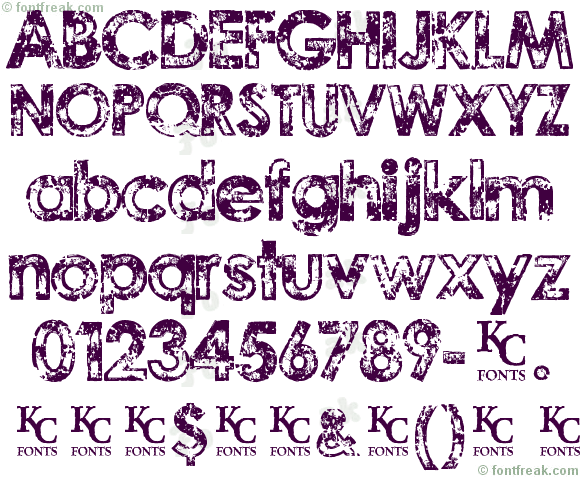
Tragic Vision
Tragic Vision by Kevin Christopher is a unique display font that captures a distinct artistic flair. This typeface falls under the decorative category, showcasing a raw and expressive style that evokes emotional depth. The visual characteristics of Tragic Vision are marked by its irregular stroke weight and a textured appearance that gives it a handcrafted feel. The letters feature a bold design with varying contrast, and the spacing is intentionally tight, contributing to its dramatic impact. This font is adorned with subtle decorative elements that enhance its artistic quality, making it stand out in various applications.
Ideal use cases for the Tragic Vision font include movie posters, where its expressive style can convey intense themes and emotions. It also works well for album covers, particularly in genres such as rock or alternative music, where a gritty aesthetic is desired. Additionally, this font can enhance creative projects like graphic novels or zines, where a narrative-driven approach is key. Small business owners looking to create eye-catching branding for their artisanal products or niche markets will find it equally effective. Moreover, content creators aiming to engage their audience with distinctive visuals will benefit from using this font in social media graphics or promotional materials.
The target audience for Tragic Vision includes graphic designers, artists, and content creators who appreciate creativity and uniqueness in their designs. This font stands out due to its ability to convey emotion and narrative through its design. The combination of a raw, artistic style with practical versatility makes it a compelling choice for various projects. For those interested in exploring this captivating typeface, the Tragic Vision font free download offers an opportunity to infuse creativity and emotional depth into any design endeavor.